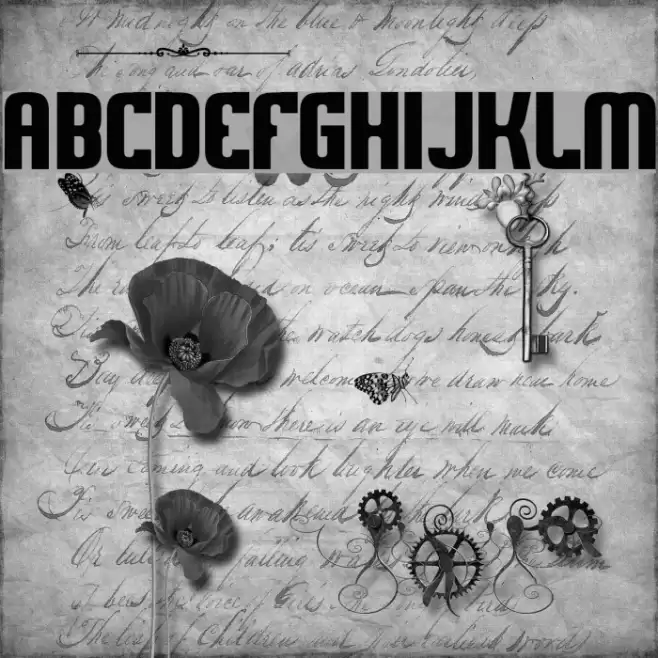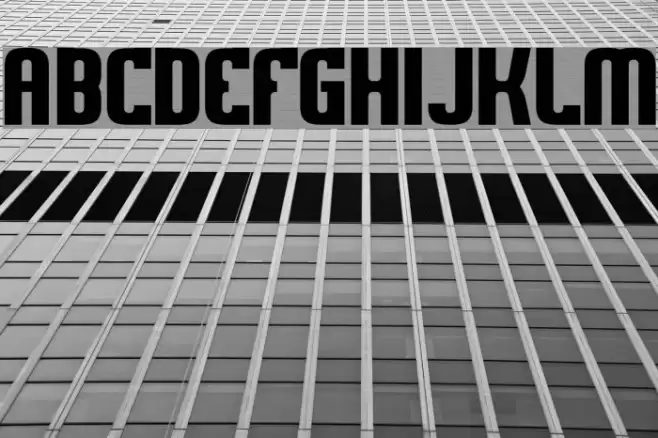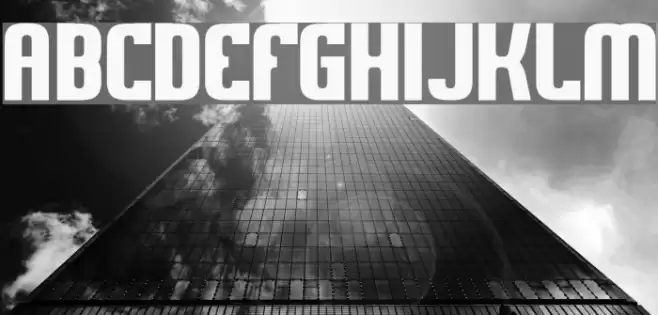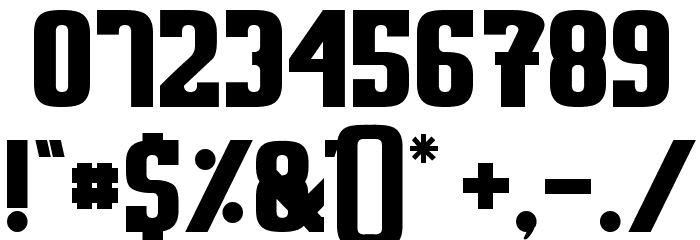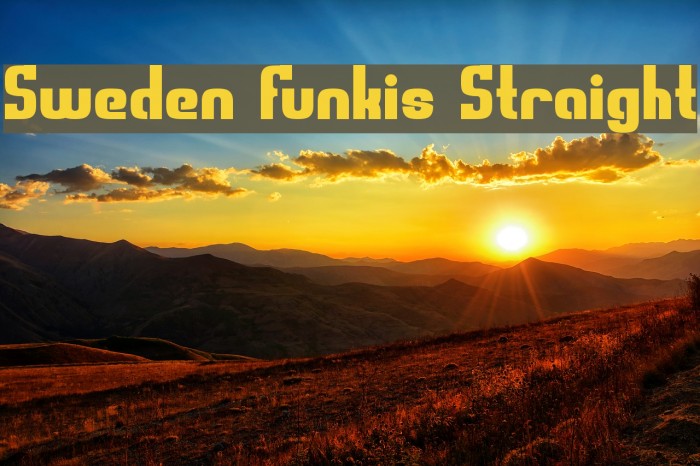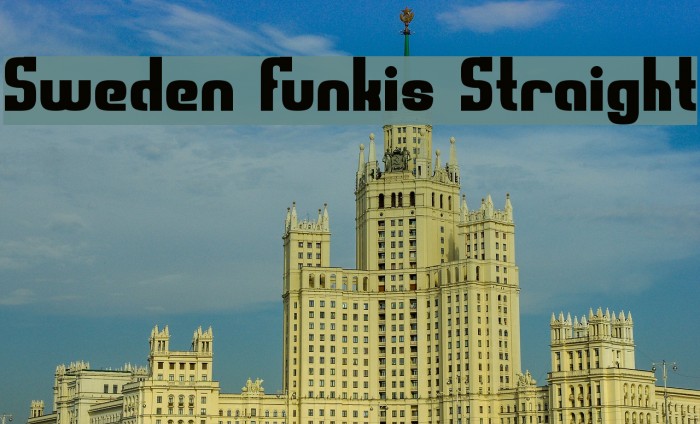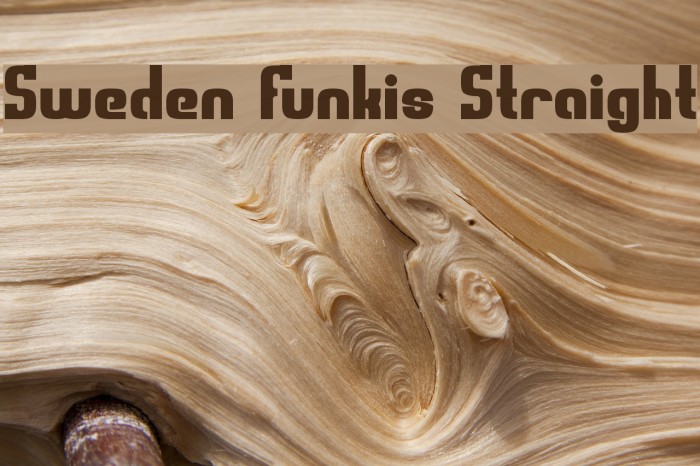
Sweden Funkis Straight Font
Sweden Funkis Straight Description
This font features a bold and geometric design, characterized by its straight lines and blocky appearance. The uppercase letters are uniform in height, with rounded edges that soften the overall look. The lowercase letters maintain the same geometric style, offering a consistent visual flow. Numbers are equally bold, ensuring readability and impact. Special characters are designed to match the boldness and geometric style of the alphabet, making them suitable for various applications. The font's strong presence makes it ideal for attention-grabbing designs.
A bold, geometric font with straight lines and rounded edges from Formal fonts.
- Proposed Projects: Ideal for posters, headlines, branding, and signage where a strong, modern look is desired.